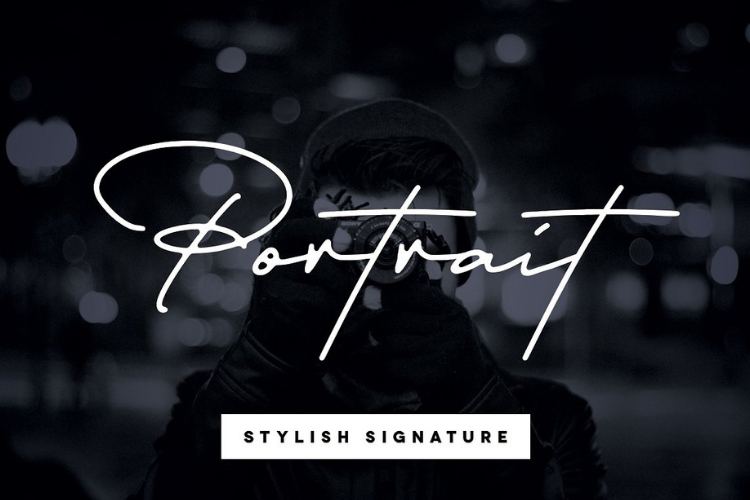
Portrait Signature Script - 6 Fonts - font bundle
Portrait Signature Script
'Portrait' is a handwritten signature script with a natural & stylish flow. This collection of scripts is perfect for personal branding. It was made with the intention to be used by Photographers as a watermark for their Photography Business - Hence the name, 'Portrait'. But, this works well for many applications. Everything from personal branding & wedding invitations to advertising could benefit from this collection of signature fonts.These typefaces work well for many different aesthetics. They work well with something like 'cosmetics' for example but would also work well with Liquor Labels, Signage, & any type of signature-styled logo.
Portrait is a must-have signature script that has a diverse set of alternates that will surely be used many times over in various projects in the future. This collection fills a void and separates itself from other scripts available.
• Includes Bold & Light weights
• Includes 3 typeface styles (Regular, Alt & Bouncy)